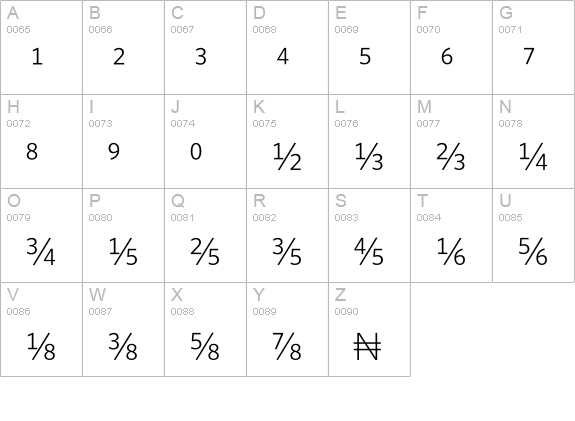
WhitneyNumeric-Light is a refined, elegant variant in the WhitneyNumeric typeface family \xE2\x80\x94 well suited to elegant body text, refined sub-headings, and luxury branding.
WhitneyNumeric-Light font is a sleek and modern typeface designed for numerical representation. Its clean lines and elegant letterforms make it perfect for any project that requires a minimalist and sophisticated aesthetic. Whether you're designing a financial report, creating a data visualization, or simply need to display numbers in a stylish manner, WhitneyNumeric-Light font is the ideal choice. This font's light weight adds a touch of delicacy, making it visually appealing while maintaining excellent legibility. The carefully crafted design ensures that each numeral is distinct and easy to read, even at small sizes. With WhitneyNumeric-Light, your numerical information will be presented with clarity and precision. One of the best features of this font is that it is freely available to download at FontsMarket.com. This means that you can easily access and use WhitneyNumeric-Light in your projects without any cost. Whether you're a professional designer or a student working on a personal project, the availability of this font for free allows you to enhance your work with a high-quality typeface without breaking the bank. Overall, WhitneyNumeric-Light font is a versatile and reliable choice for all your numerical needs. Its clean and modern design, combined with its availability as a free download at FontsMarket.com, makes it an essential resource for anyone seeking a visually appealing and easily readable font for their numerical content.